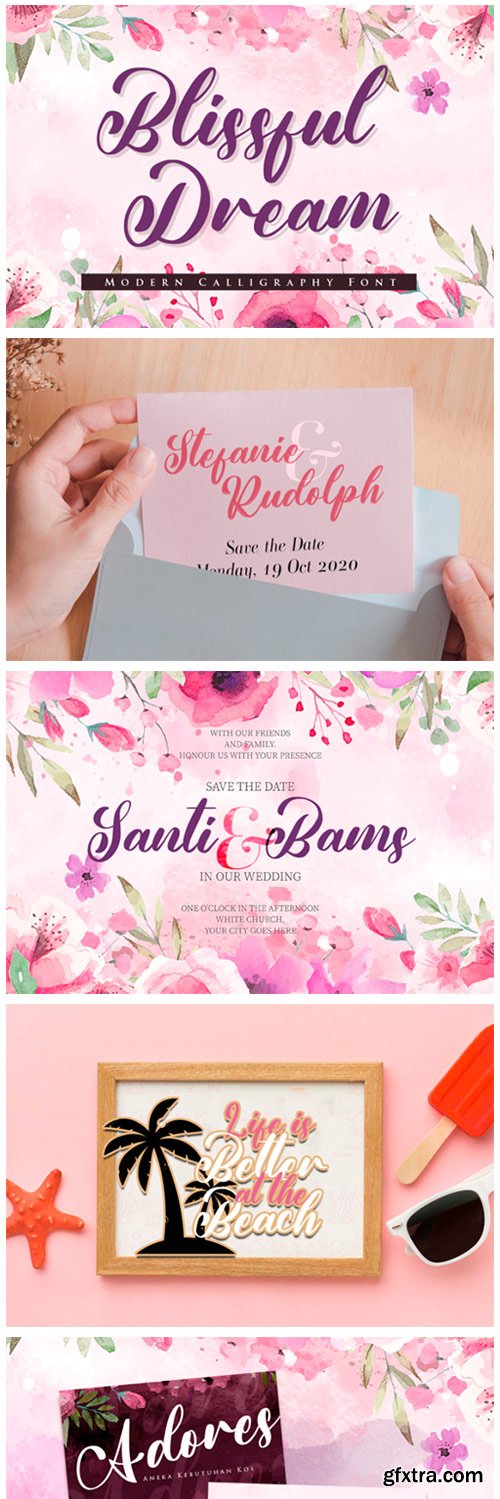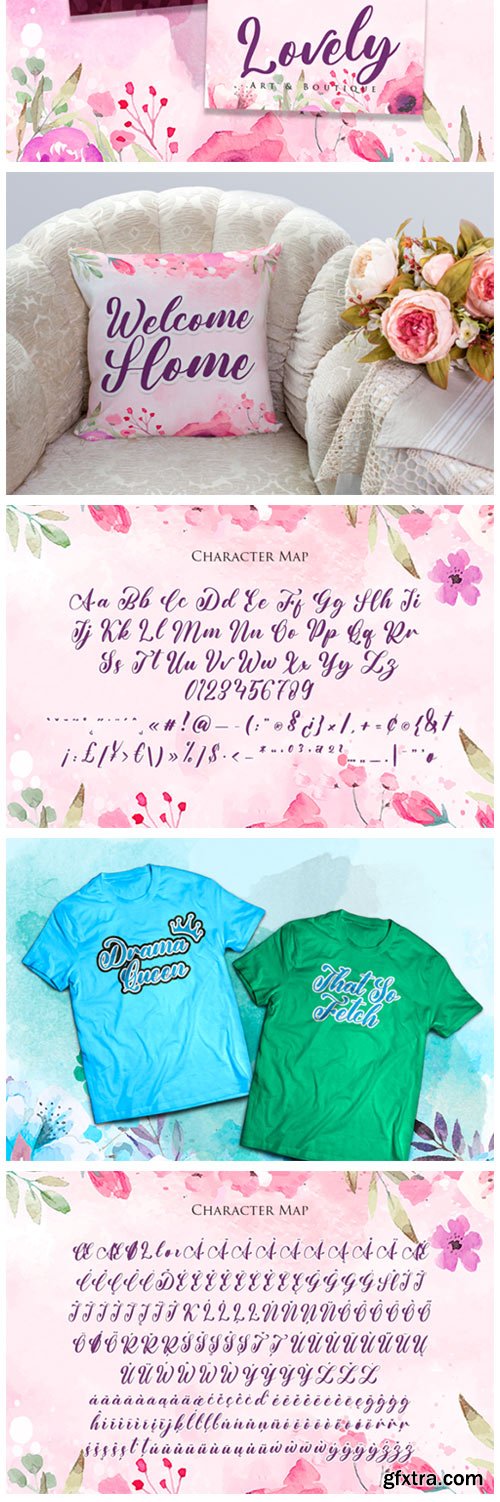
Blissful Dream Font
Blissful Dream is a cute and beautiful handwritten font with an incredibly gentle feel. It features gorgeous swashes and ligatures that make this script incredibly versatile. Blissful Dream will turn any creative idea into a true piece of art!